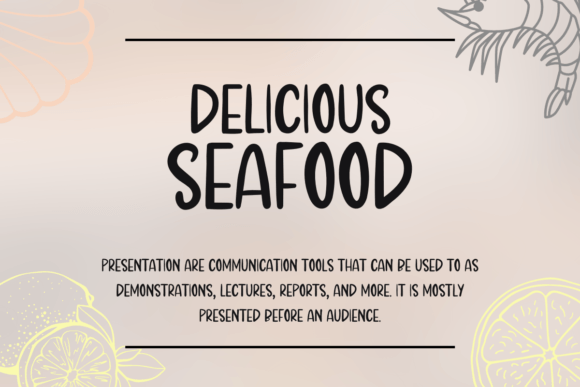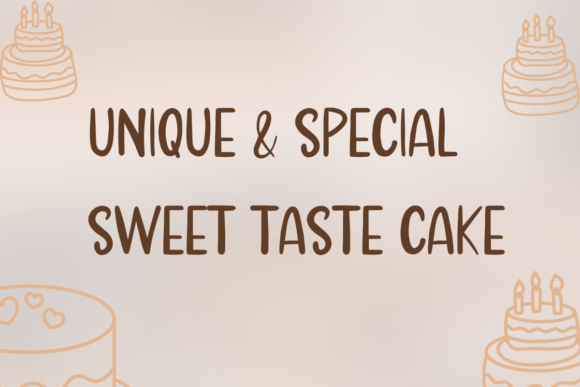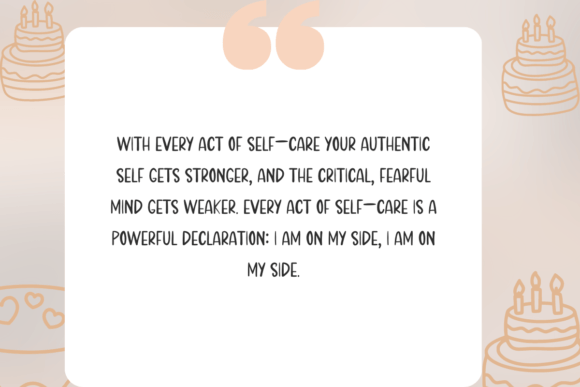
Introduction to Bageri Lemon Font
Bageri Lemon is a casual handwritten font that exudes a friendly and approachable vibe.
Its imperfect strokes and slightly uneven baselines give it a personal touch, as if each letter was written by hand This font is perfect for creating a cozy and welcoming atmosphere, and is a great choice for social media graphics, invitations, and other projects that require a personal touch.
Bageri Lemon Font offers exceptional quality and versatility, making it a valuable addition to your design toolkit. Whether you’re creating for personal projects or commercial use, Bageri Lemon Font delivers professional results.